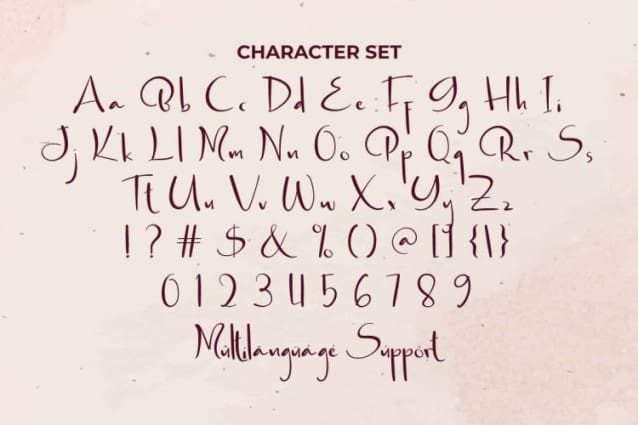
Berry Jam Font
Berry Jam Font is a sweet fruity beautiful calligraphic script font made from an authentic handwritten style. It brings a bright and cheerful feel to its appearance, guaranteed to add a suitable appeal to your brand images, heading, label, logo design, menu flyer, product packaging, quotes, signage, social media posts, title, website, and more.
Berry Jam Font comes with a full set of Uppercase and Lowercase letters, Number, Punctuation and Symbol. Also the addition of swoosh elements will beautify this font. The simple yet elegant lettering characters will add a casual, cool and sweet human touch to any design. It’s ideal for advertisement, café, graphic design, pastry chef, planters, restaurant, sweet food business, and others.